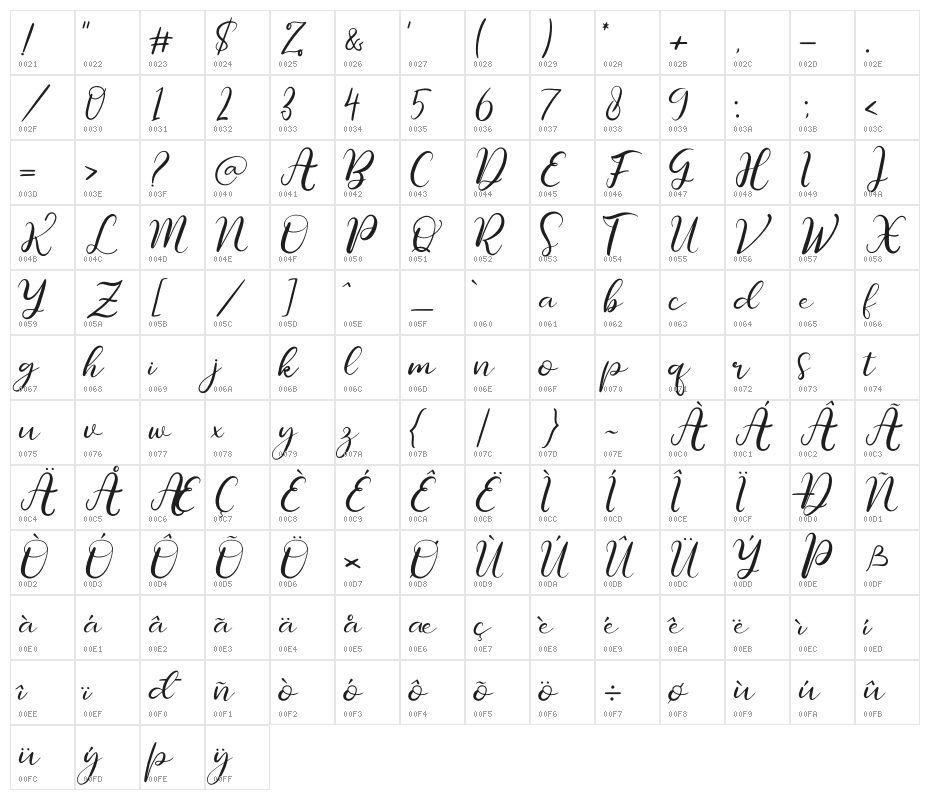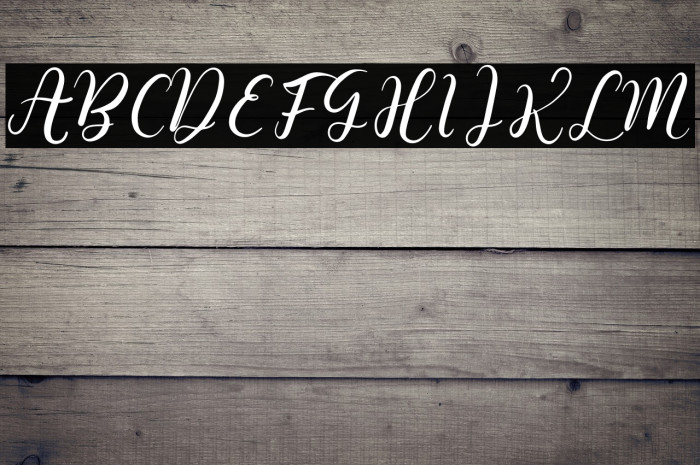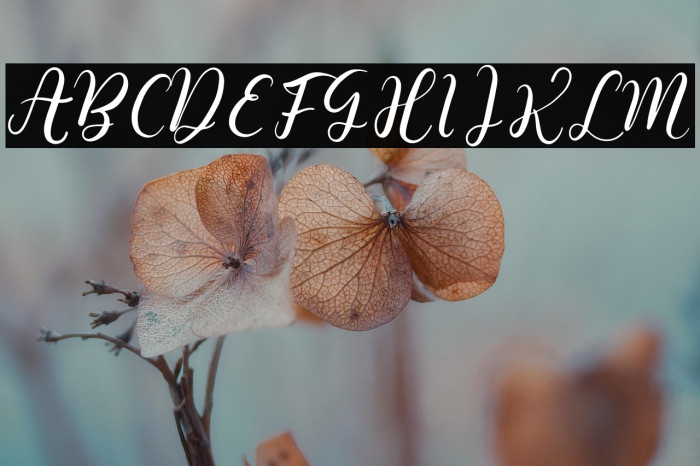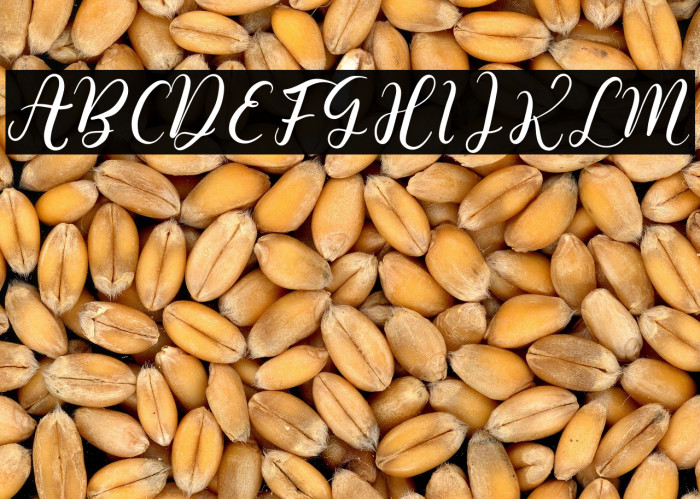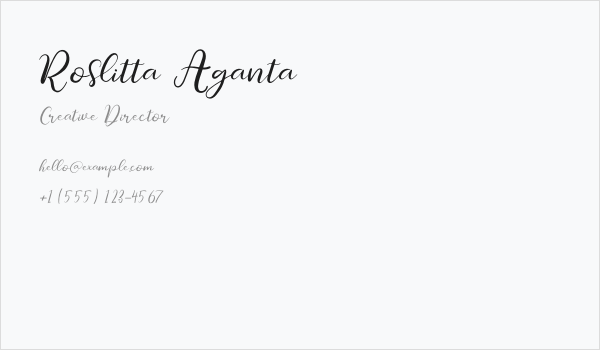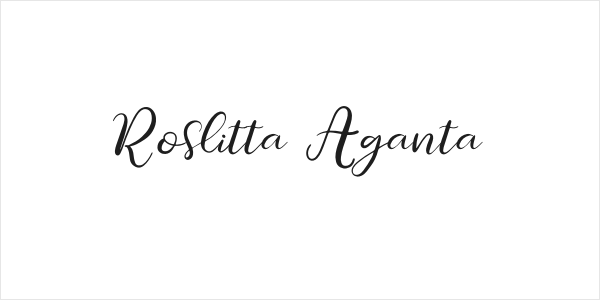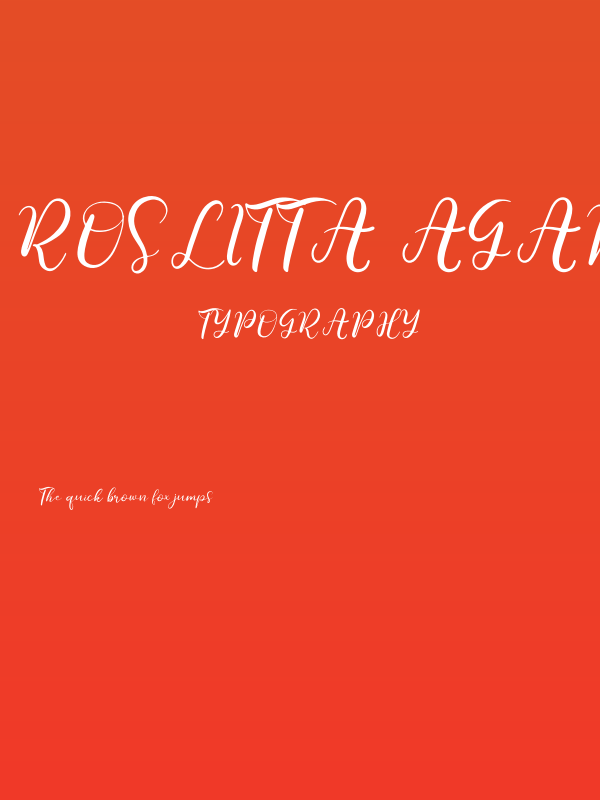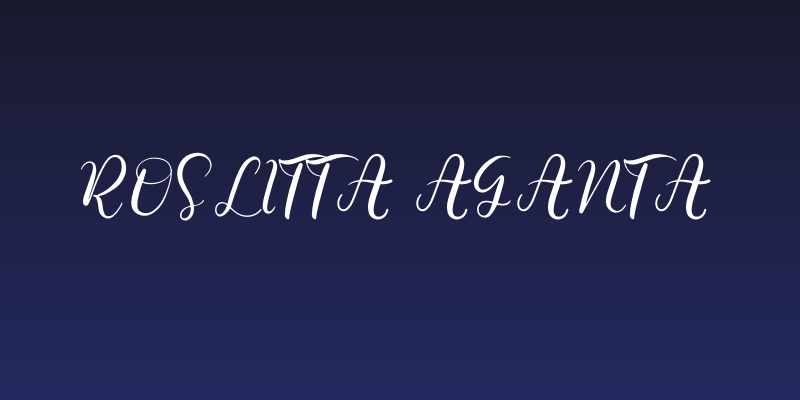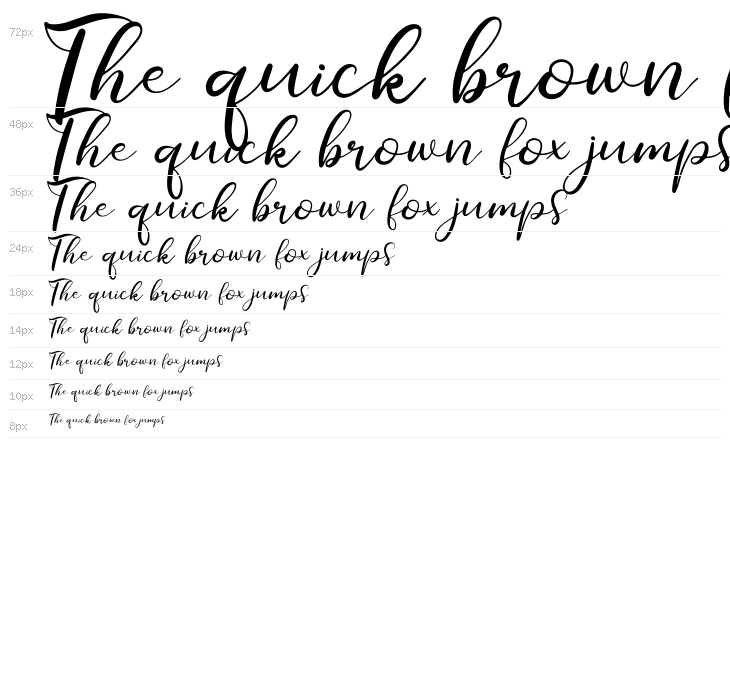
Roslitta Aganta Font
Roslitta Aganta Description
This elegant script font features a flowing, cursive style with a modern twist. The characters are connected with smooth, sweeping strokes that give it a graceful and sophisticated appearance. The uppercase letters are slightly more ornate, with flourishes that add a touch of flair, while the lowercase letters maintain a consistent, fluid motion. The numbers and special characters are designed to complement the letters, maintaining the same elegant style. This font is perfect for adding a personal touch to any project, with its stylish and contemporary look.